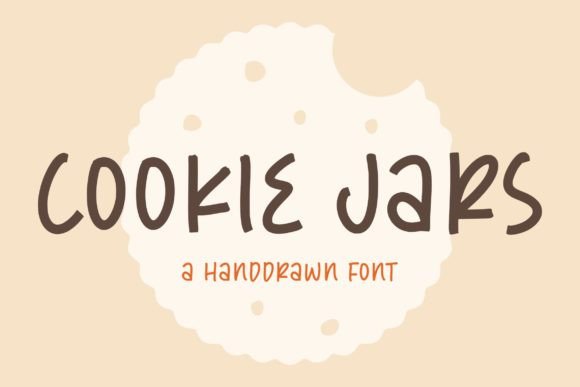
Introducing Cookie Jars Font: The Sweetest Addition to Your Design Toolbox
Are you tired of using the same old fonts for your crafts, digital designs, and presentations? Look no further! Cookie Jars Font is a charming, hand-drawn font that’s sure to become your new favorite. With its whimsical and playful style, this font is perfect for a variety of projects, from greeting cards and invitations to digital graphics and crafts.
A Font that’s as Sweet as Cookies
Cookie Jars Font is a unique and delightful font that’s inspired by the classic cookie jars of childhood. Its hand-drawn design features a warm, friendly feel that’s sure to evoke a sense of nostalgia and playfulness. Whether you’re using it for personal or commercial projects, this font is sure to add a touch of sweetness and personality to your designs.
Cookie Jars Font is a versatile font that’s perfect for designers and crafters of all levels. Its clear and legible design makes it ideal for use in a variety of projects, including:
- Crafts: Use Cookie Jars Font to add a personal touch to your handmade crafts, such as scrapbooking, card making, and DIY gifts.
- Digital Design: Add a playful touch to your digital graphics, social media posts, and website designs with this charming font.
- Presentations: Use Cookie Jars Font to add a touch of whimsy and personality to your presentations, making them more engaging and memorable.
- Greeting Cards: Create beautiful and unique greeting cards for special occasions, such as birthdays, holidays, and anniversaries.
Why You’ll Love Cookie Jars Font
So, what makes Cookie Jars Font so special? Here are just a few reasons why you’ll love this hand-drawn font:
- Unique and Playful Design: Cookie Jars Font features a one-of-a-kind design that’s sure to stand out from the crowd.
- Hand-Drawn with Love: This font is carefully crafted with attention to detail, giving it a warm and personal feel.
- Highly Versatile: Use Cookie Jars Font for a wide range of projects, from digital designs to handmade crafts.
- Easy to Read: Despite its playful design, Cookie Jars Font is clear and legible, making it perfect for use in a variety of contexts.
- Pair it with Other Fonts: Combine Cookie Jars Font with other fonts to create a unique and eye-catching design.
- Use it for Headings and Titles: Cookie Jars Font is perfect for use in headings and titles, adding a touch of personality and whimsy to your designs.
Cookie Jars Font is a charming and versatile font that’s sure to become your new favorite. With its unique and playful design, this hand-drawn font is perfect for a wide range of projects, from crafts and digital designs to presentations and greeting cards. Whether you’re a designer, crafter, or simply someone who loves to create, Cookie Jars Font is a must-have addition to your design toolbox.